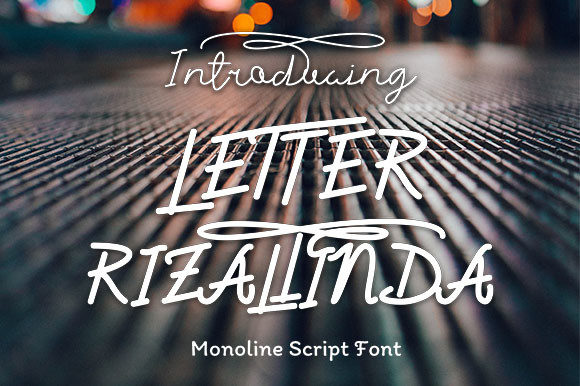
Elevate your designs to new heights with Letter Rizallinda, a captivating script font that will inject a touch of urban flair into your creations. Imagine your words dancing on the page with a rhythm and flow that will mesmerize your audience.
Crafted with precision, Letter Rizallinda's PUA encoding unlocks a world of possibilities. Dive into a treasure trove of glyphs and swashes, giving you the freedom to express yourself with unparalleled creativity. Its urban edge lends a touch of sophistication, making it perfect for everything from elegant invitations to edgy social media posts.
Unleash your inner artist and embrace the power of Letter Rizallinda. Let your imagination soar as you create logos that demand attention, website headers that captivate, and marketing materials that leave a lasting impression. Its versatility knows no bounds, enhancing the allure of any project it graces.
Immerse yourself in the beauty of Letter Rizallinda, a font that will transport your designs to extraordinary heights. Join the ranks of satisfied customers who rave about its effortless charm and ability to transform ordinary text into captivating works of art.
Don't settle for the mundane. Embrace the captivating embrace of Letter Rizallinda and witness the magic unfold. Let your creativity flourish as you craft designs that resonate with your audience, leaving an unforgettable mark on the world.